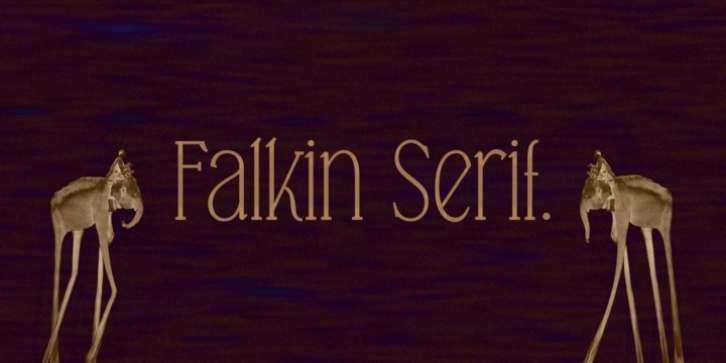
Falkin Serif was designed by Måns Grebäck and published by Mans Greback. Falkin Serif contains 4 styles and family package options.
This is a 1900's serif typeface designed by Måns Grebäck.
It comes as a thin regular and a thick bold, as well as italic versions of each of the weights.
· Falkin Serif
· Falkin Serif Italic
· Falkin Serif Bold
· Falkin Serif Bold Italic